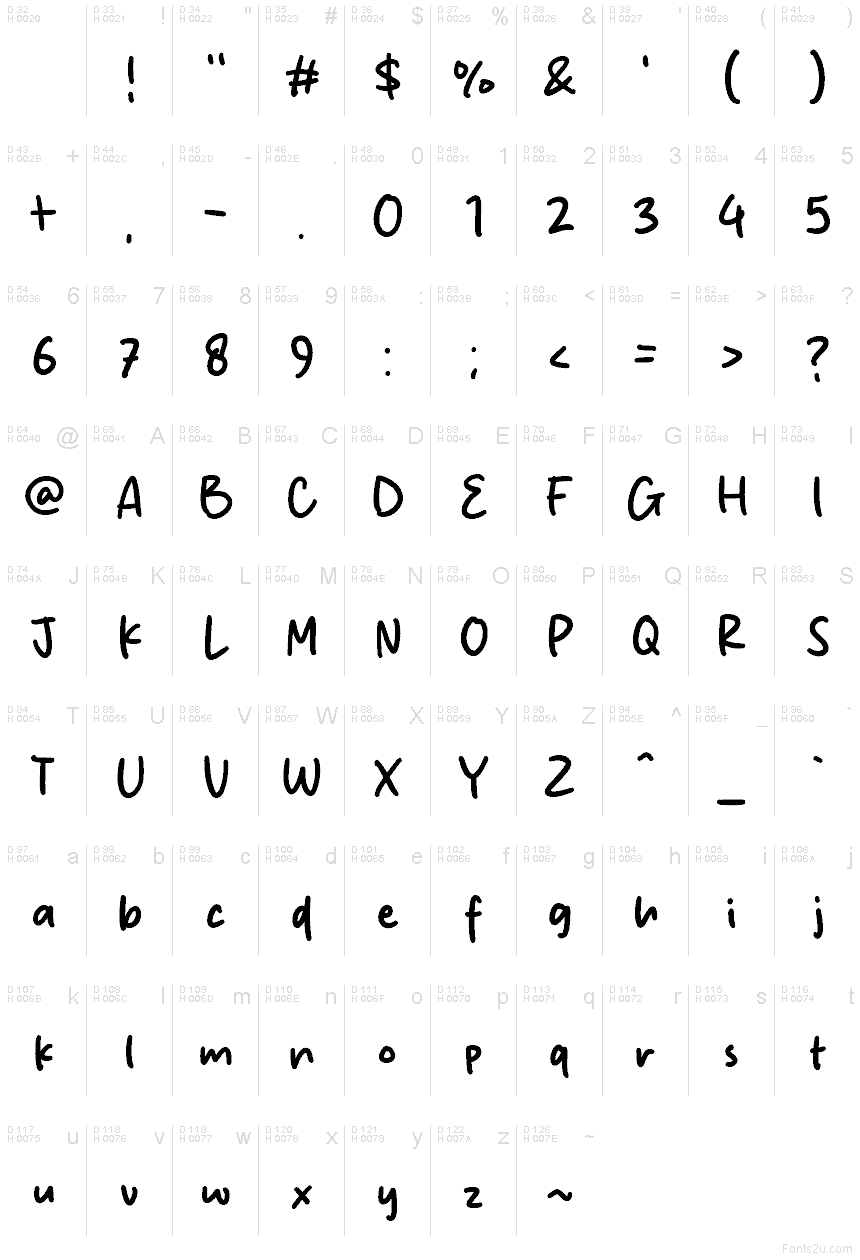
Peach Glyph
Peach Glyph font by Origin Type is a free handwritten font that feels like it was painted with a thick, inky marker. Rounded strokes, confident curves, and tight, bouncy spacing give it a friendly, hand-lettered energy that stays easy to read even at smaller sizes. It carries just enough messiness to feel human, without ever looking sloppy or rushed.
Using Peach Glyph, you can bring a warm, personal tone to social media graphics, quote posts, logos, product packaging, greeting cards, invitations, and branding for lifestyle projects. This free font shines on bold headers and short phrases; pair it with a clean sans serif for body text, and let Peach Glyph handle the noisy, attention-grabbing moments.